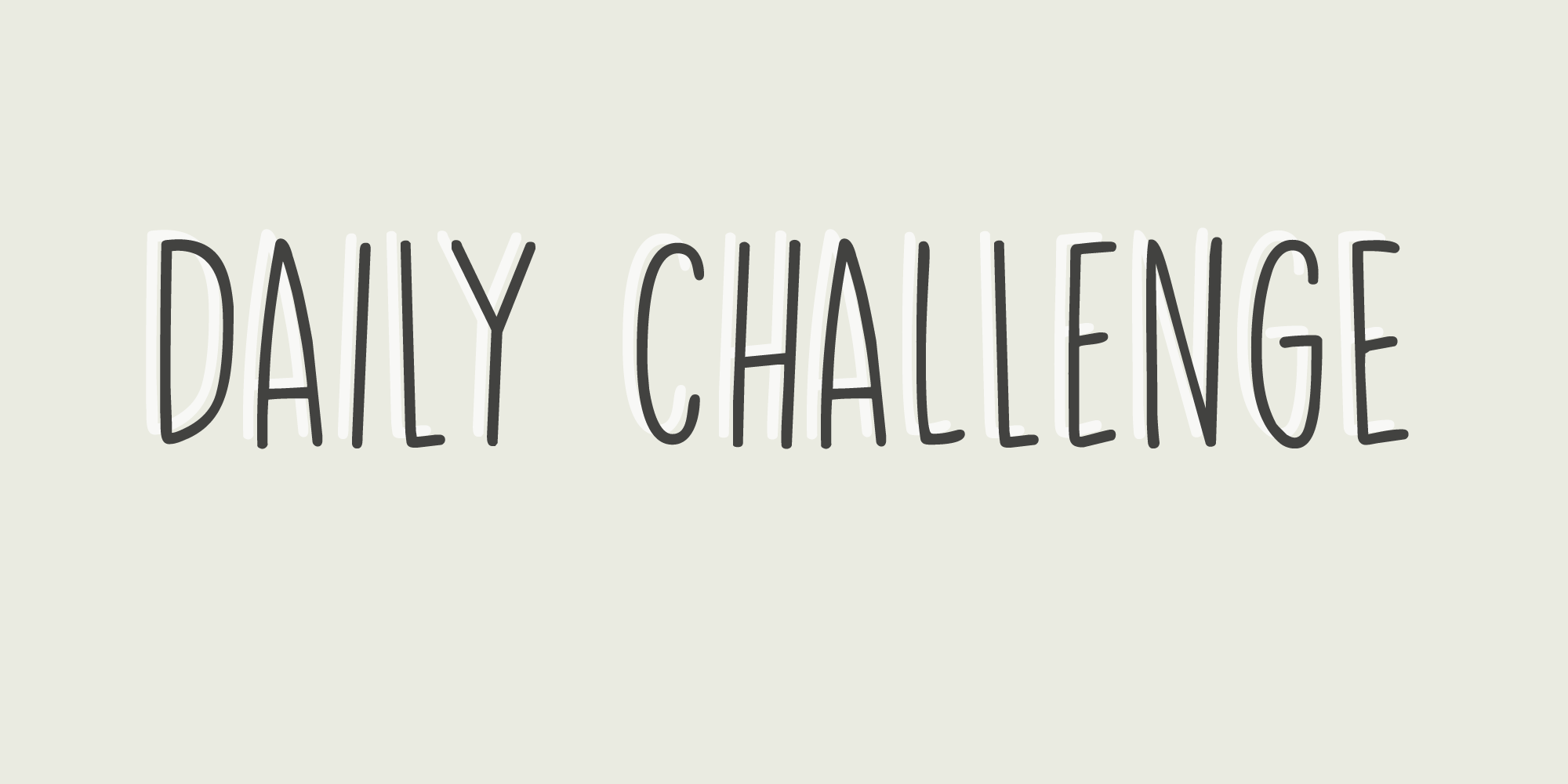
Daily Challenge Font is ideal for fitness app interfaces, motivational poster designs, goal-setting planners, workout program branding, personal development materials, challenge-based marketing campaigns, productivity app design, habit tracker interfaces, achievement-focused advertising, and inspiring educational content. This motivational typeface excels in environments where determination, progress, and daily commitment are essential for encouraging personal growth and sustained achievement.
What makes Daily Challenge Font exciting is its powerful embodiment of daily determination and persistent effort through letterforms that radiate energy, focus, and the unwavering commitment required for personal transformation. The font features strong, confident characteristics with subtle progress-inspired details that convey resilience, motivation, and the empowering satisfaction that comes from meeting daily challenges and achieving incremental goals. This motivational aesthetic makes it perfect for brands seeking to communicate personal empowerment, consistent progress, and the transformative power of daily dedication.
Daily Challenge Font family includes Light, Regular, Medium, Bold, Strong, Motivated, Persistent, and Achievement variants. Each style maintains the font's distinctive motivational character while offering different levels of determination intensity and inspirational expression, enabling designers to create authentic goal-focused compositions that celebrate personal growth and daily commitment across various motivational applications.
Motivational design professionals appreciate the font's ability to instantly communicate determination, progress, and achievement-focused mindset. The letterforms' strong characteristics and challenge-inspired details create inspirational connections that passive fonts cannot achieve, making it essential for projects requiring distinctive motivational personality and achievement-oriented appeal.
When working with Daily Challenge Font, designers can create compelling visual narratives that resonate with goal-oriented audiences and self-improvement communities. The font's determined character makes it especially effective for brands in fitness, personal development, educational training, and motivational services where authentic commitment credibility and achievement appeal are crucial for inspiring sustained engagement.
For digital applications, Daily Challenge Font maintains its distinctive determined qualities across different platforms while ensuring excellent readability in modern motivational contexts. Its optimized spacing preserves the strong character essential for authentic achievement appeal.
Motivational marketing agencies consistently select Daily Challenge Font for projects requiring genuine inspirational appeal and achievement authenticity, where conventional typography cannot capture the desired determination and daily commitment that defines contemporary fitness culture and personal development movements.